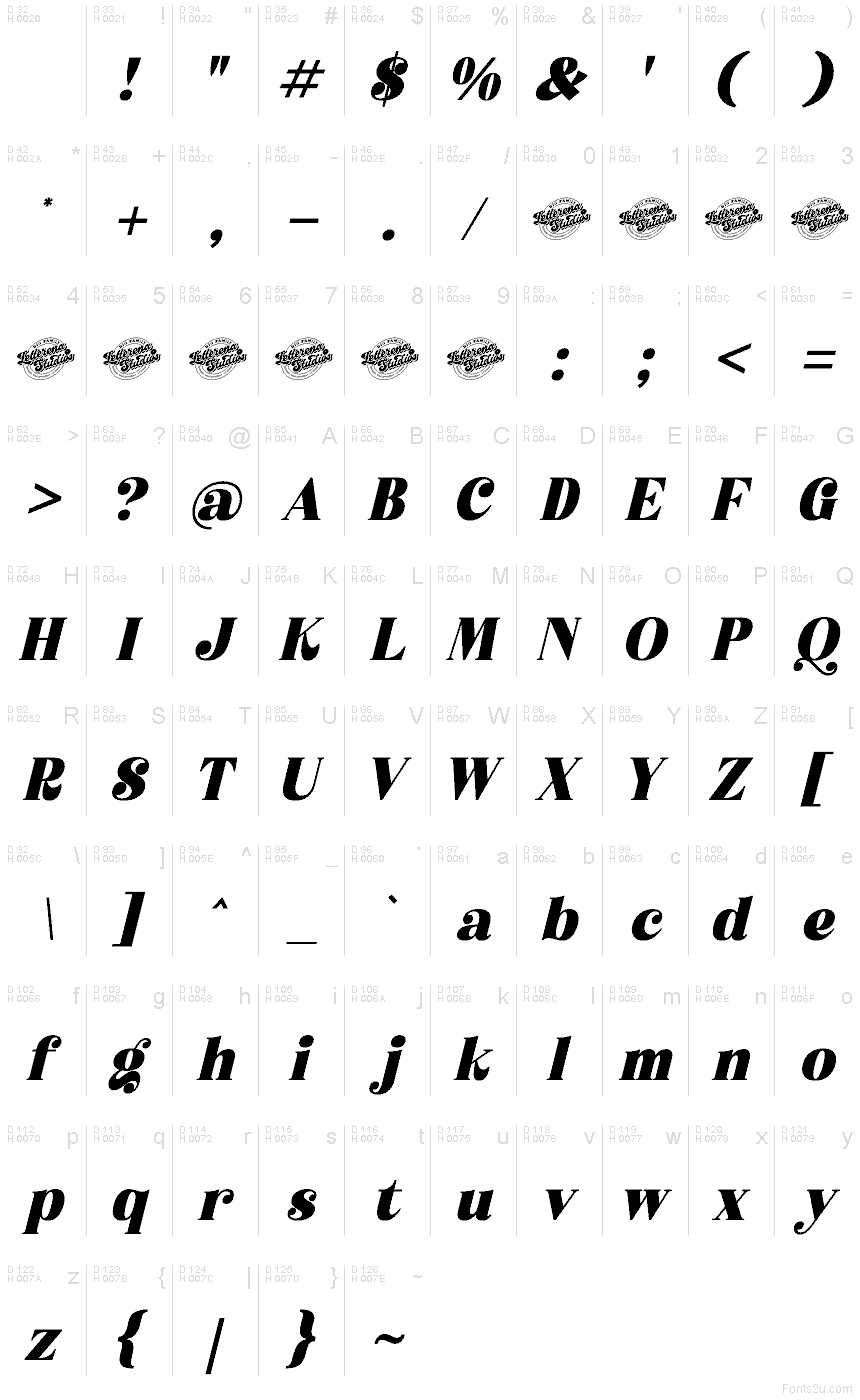
Atlantis Famingo DEMO VERSION Italic
Atlantis Famingo Italic font by Letterena Studios is a free bold serif font. Built around a lush, calligraphic slant, it carries inky contrast, tight rhythm, and those distinctive curled terminals that leave a soft, glossy finish at the ends of strokes. The wedges on the serifs feel sculpted rather than carved, giving headlines a decadent snap while staying legible at medium sizes. Part of the Atlantis Famingo family, it leans into drama without tipping into kitsch.
Using Atlantis Famingo Italic, your wordmarks gain instant allure for boutique logos, beauty packaging, wine labels, editorial headers, event posters, and book covers. The compressed flow and confident angle pull the eye through a line, perfect when you want elegance with momentum. This free font shines when set large with generous letterspacing; pair it with a plain, light-weight sans to let the curves breathe and keep the message front and center.